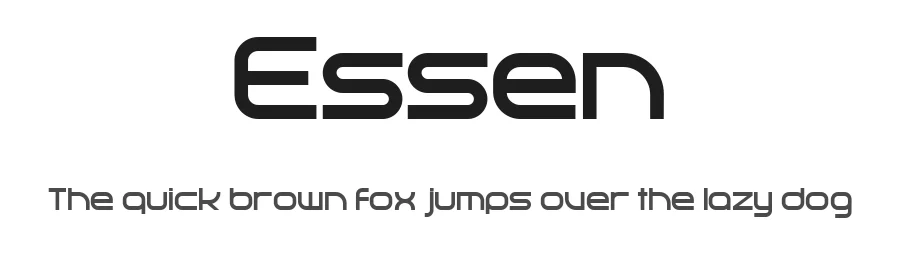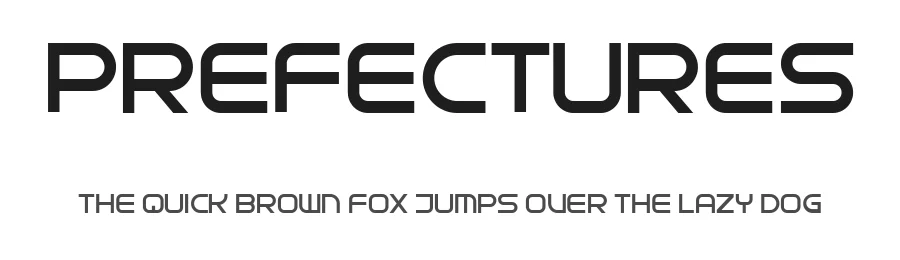
About Central Powers Font
Central Powers is a sans-serif font designed by Vladimir Nikolic. It includes 87 glyphs, a regular weight, TTF (TrueType) format, and 104 languages. Central Powers is free to download; check the license details on this page before commercial use. Sans-serif fonts like Central Powers work best for clean body text, user interfaces, branding, and modern layouts.
Central Powers Font is a versatile sans-serif font that works for both headings and body text. Pair it with a contrasting serif or slab serif font to add visual interest and a clear distinction between titles and body copy.